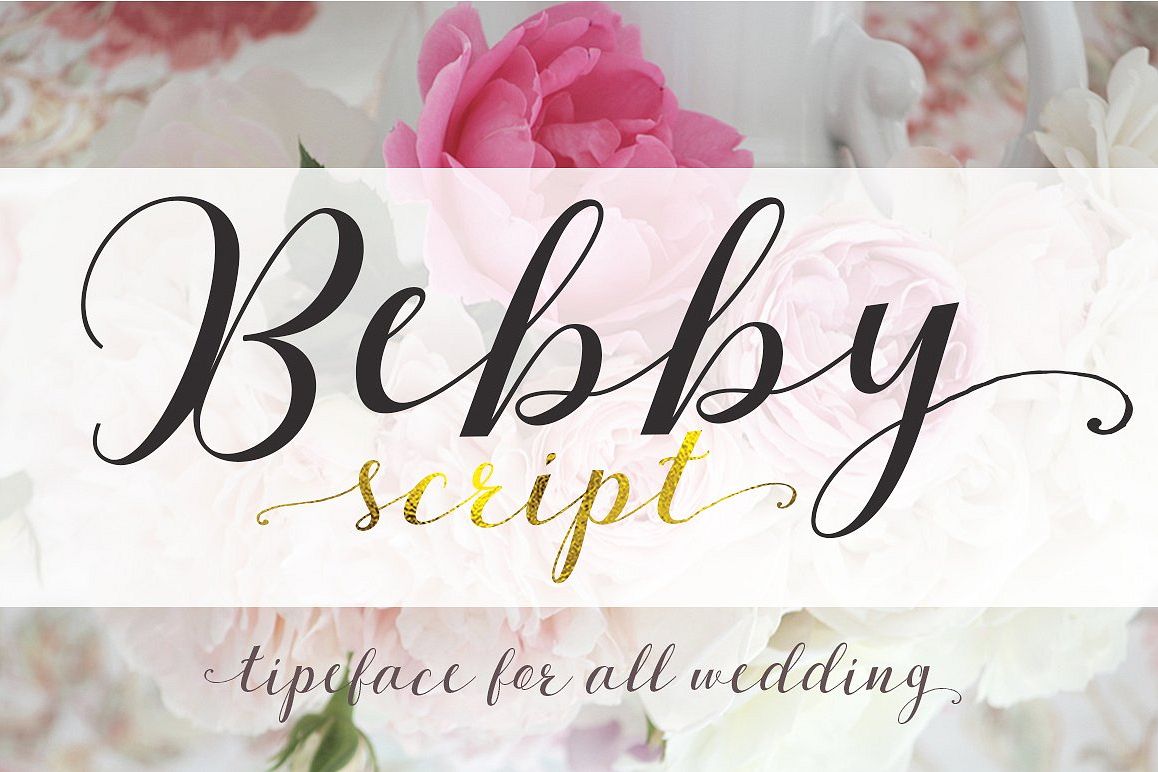
Introduce New Calligraphy Bebby Script with its unique style and elegant very suitable for produck, inspirational quotes, graphic t-shirts, art typography, clothes, labels, badges, posters, business cards, wedding-style invitations, mold, signs, emblems, book cover design headlines, titles, etc. Including over 373 fonts + Glyph ..Whats INCLUDED? . Bebby Script OTF Bebby Script TTF Web Font (eot, svg, woff, woff2)Thanks for looking, and I hope you enjoy it !!! Please do not hesitate to drop me a message if you have any issues or queries.